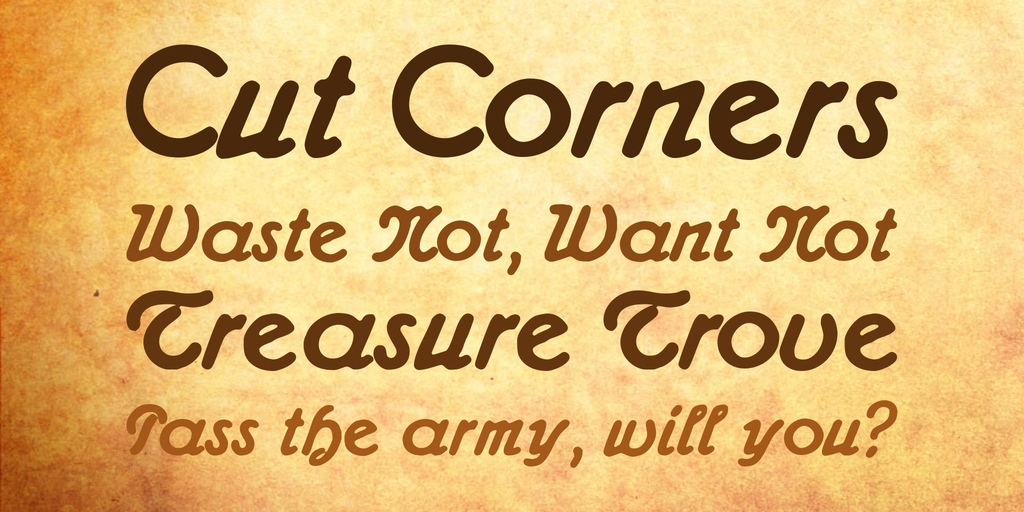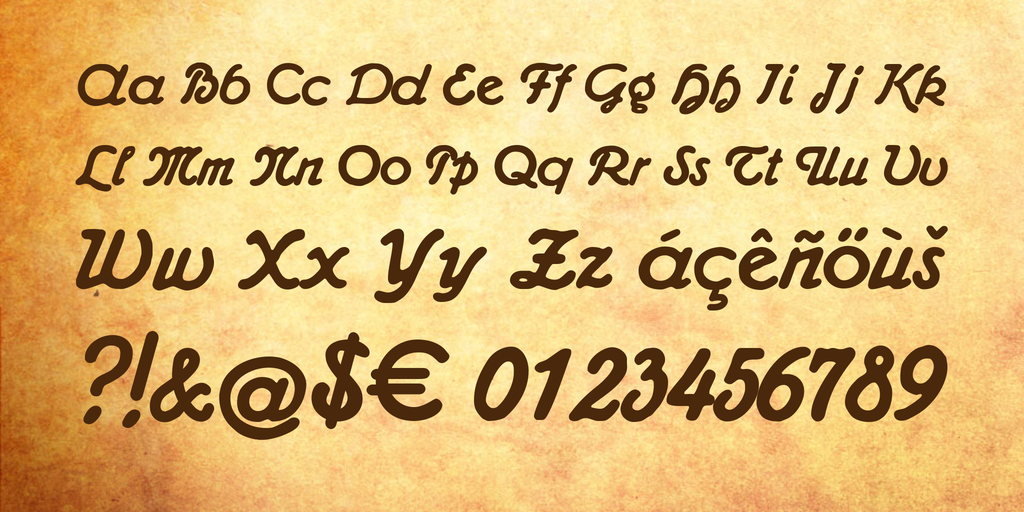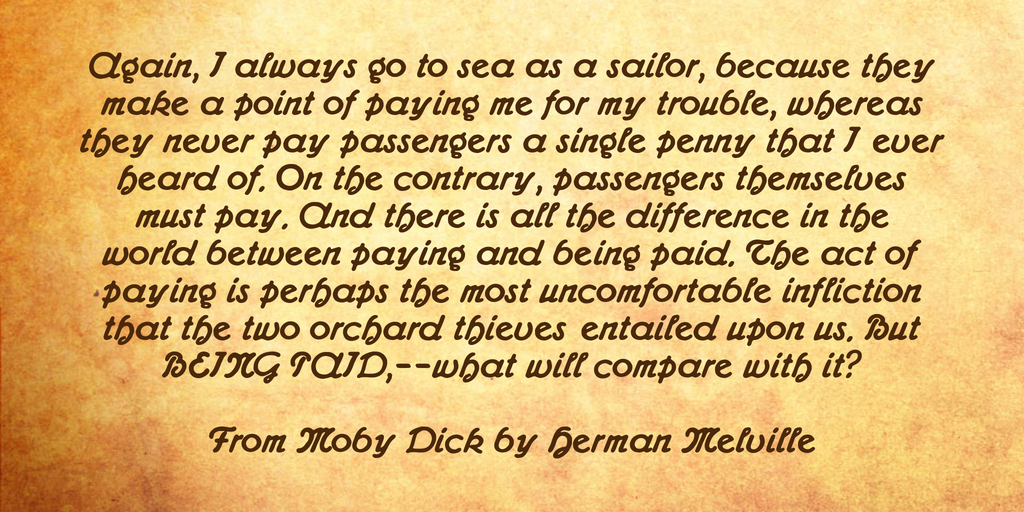
Admiral CAT Font
Translated from the original German description: This font comes from the assortment of the Berlin foundry of William Wöllmers, this foundry mainly made fonts for advertising, also in large sizes for posters and beyond that Wöllmers created brass lines and symbols required in advertising and also wooden letters.